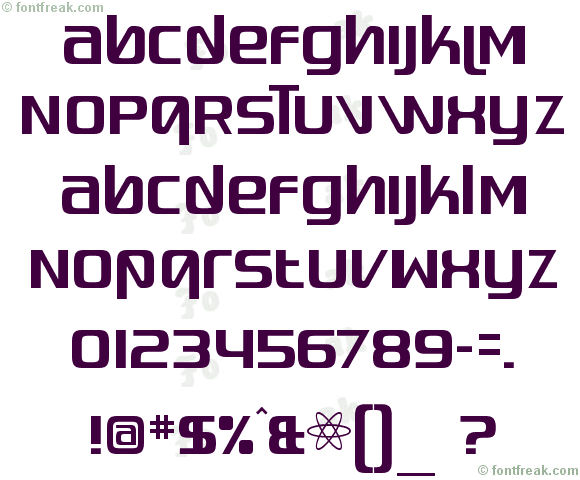
Quadaptor
About Quadaptor
Quadaptor, designed by Ray Larabie in 1999, is a unique display font that falls within the sans-serif category. This typeface is characterized by its bold, geometric forms and clean lines, making it a striking choice for various design projects. The stroke weight is consistent throughout, giving it a solid appearance, while the ample spacing between characters enhances readability. Quadaptor features slight angular elements that add a modern touch, making it versatile for creative applications.
This font is perfect for a range of use cases, including eye-catching movie posters, contemporary website headlines, and impactful branding materials. Graphic designers will appreciate its ability to convey a strong message without overwhelming the viewer. Additionally, Quadaptor is well-suited for restaurant menus where a modern edge is desired, as well as event flyers that aim to capture attention quickly. Its bold design ensures that it stands out in crowded visual environments, making it a favorite among content creators looking to make a statement.
What sets Quadaptor apart from other display fonts is its unique blend of simplicity and boldness. This font not only captures attention but also retains clarity, making it an invaluable tool for anyone looking to elevate their visual communications. Whether for print or digital media, Quadaptor delivers a distinct style that can adapt across various platforms and mediums.
Author Ray Larabie